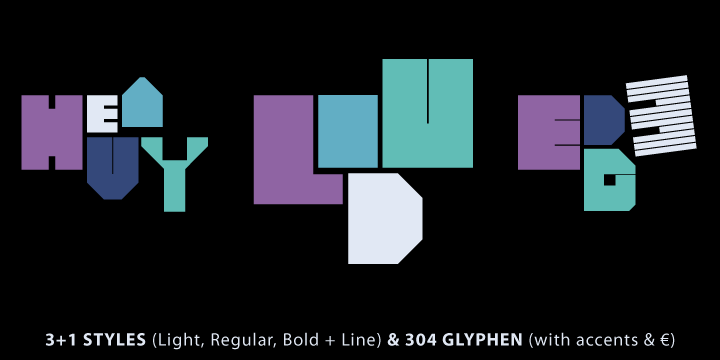
Preview and download Heavy Loud Edge Font. Created by Manuel Viergutz | Typo Graphic Design in Techno Square styles with Free for personal use license.
Headline Font / Display Font / Techno Fat Font "HeavyLoundEdge" with 4 stlyes (regular, bold, light, line) & 304 glyphs inkl. accents & € INFO If you want to use this font for commercial projects, please contact me: manuel.viergutz[at]gmx.de or donate an amount greater-than-or-equal EUR 15 / $ 19 (for commercial licence). I also appreciate it if you send me links /images of your (non)-commercial work featuring this font. See HeavyLoundEdge in use http://issuu.com/darkwarrior/docs/blanket_issue15 More... |